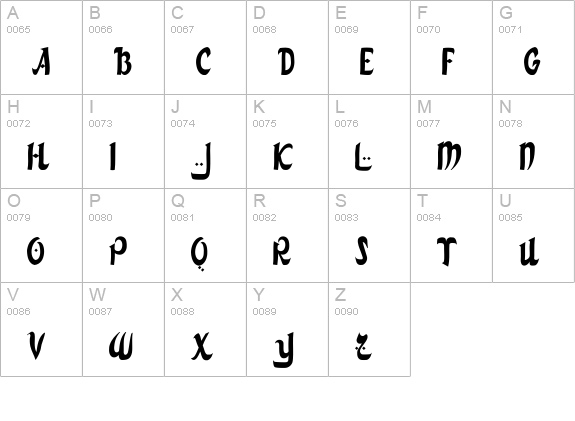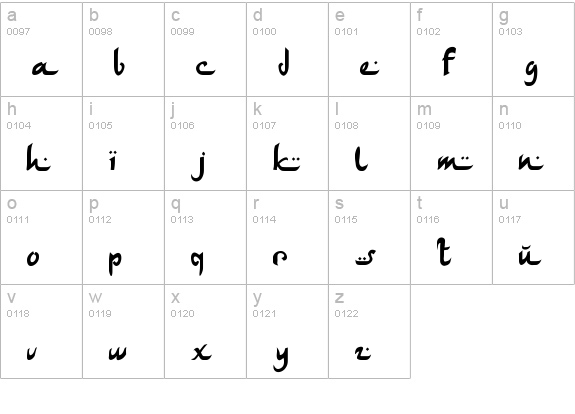
ArabDancesMediumItalic Font Details
ArabDancesMediumItalic is a stunning and elegant font that embodies the beauty and fluidity of traditional Arab dance movements. Its graceful curves and intricate details capture the essence of Middle Eastern culture and artistry. This font exudes a sense of sophistication and charm, making it perfect for adding a touch of exotic flair to your designs. ArabDancesMediumItalic is not only visually captivating but also versatile, suitable for various design projects such as branding, invitations, posters, and more. Its italicized form adds a dynamic and modern twist to the classic Arabic script, making it a unique and eye-catching choice for any creative endeavor. Best of all, ArabDancesMediumItalic is available for free download at FontsMarket.com, allowing you to easily incorporate this exquisite font into your projects without any cost. Don't miss the opportunity to enhance your designs with the beauty and elegance of ArabDancesMediumItalic. Download it now and let your creativity soar!